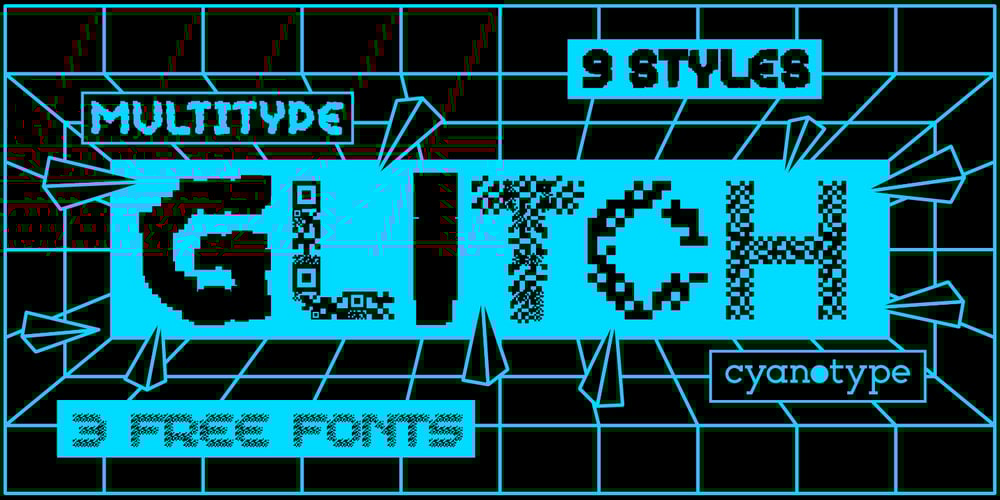
MultiType Glitch
MultiType Glitch font
MultiType Glitch Font Family was designed by Damián Guerrero and published by Cyanotype. MultiType Glitch contains 9 styles and family package options. MultiType Glitch, an all caps typeface focused in display purposes. 9 styles with a glitchy look.This is the third release of an expanding multiverse of mixable fonts. The whole family of typefaces has been designed to work at big sizes and display purposes such as branding, headlines, thumbnails, posters and animations. You can swap between the three additional alternate sets through all the styles to add diversity to your composition, even in Cyrillic.MultiType Glitch is inspired glitch effects, errors and hacks. Have fun mixing all the styles in your projects.